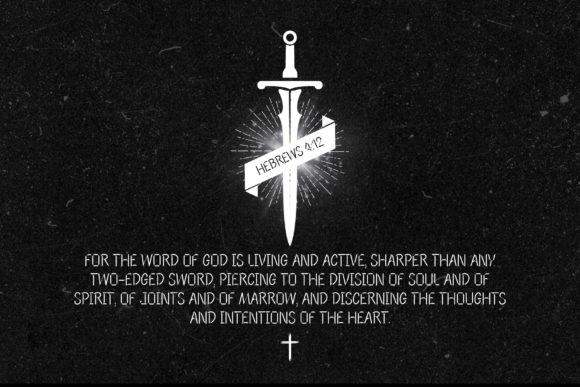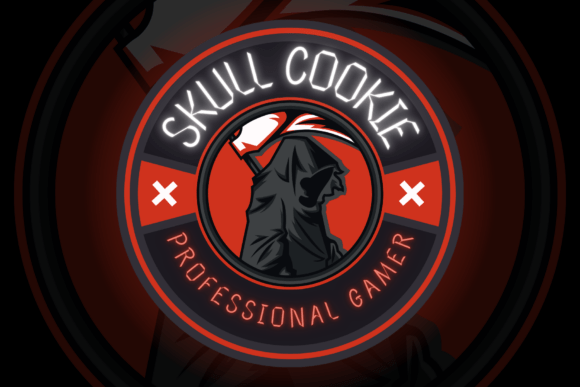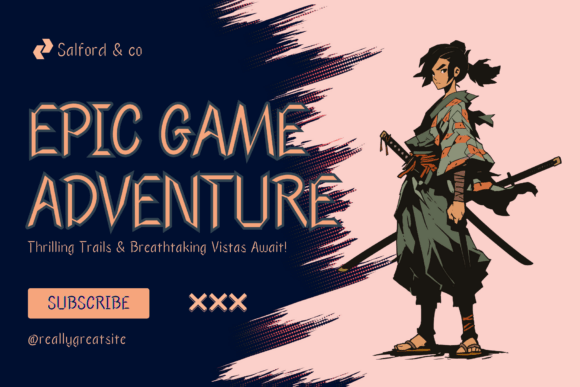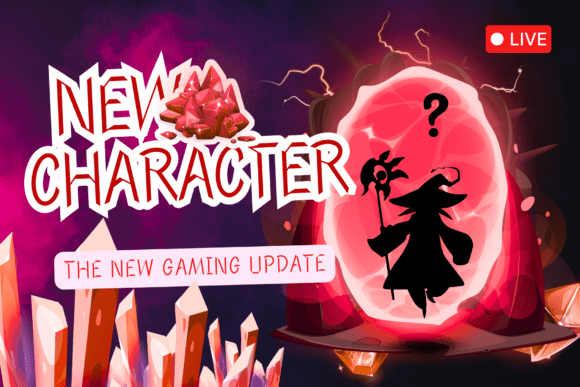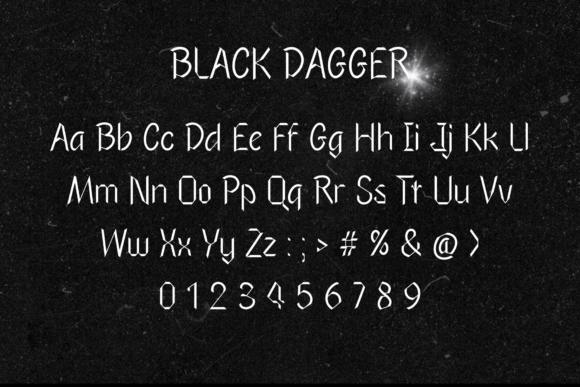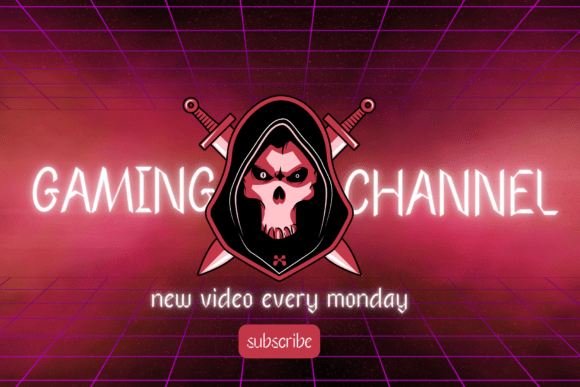
Unleash the Dark Side: Exploring the Black Dagger Font
In the realm of typography, few fonts evoke the same level of mystery and intrigue as the Black Dagger font. This Gothic fantasy font has been making waves among designers and crafters, and for good reason. With its sharp lines and sword-like points, Black Dagger exudes a sense of dark energy that’s perfect for creating a range of designs that are both eerie and captivating.
The Anatomy of Black Dagger
So, what sets Black Dagger apart from other fonts? The answer lies in its unique design elements. The font features sharp, pointed lines that give it a sword-like quality, evoking the image of a dagger plunged into the darkness. The letters themselves are ornate and intricate, with a level of detail that’s both impressive and intimidating. Whether you’re designing a poster, book cover, or party invitation, Black Dagger is sure to make a statement.
Crafting a Mysterious Atmosphere
One of the key benefits of using Black Dagger is its ability to create a mysterious and intriguing atmosphere. The font’s dark energy is palpable, and it’s perfect for designers who want to add a touch of the unknown to their work. Whether you’re creating a spooky menu for a Halloween party or a book cover for a fantasy novel, Black Dagger is the perfect choice. The font’s Gothic undertones add a level of sophistication and elegance, making it suitable for a range of applications.
Perfect for Halloween and Fantasy Designs
Halloween is just around the corner, and Black Dagger is the perfect font for creating spooky and eye-catching designs. Imagine using Black Dagger to create a poster for a haunted house, a book cover for a horror novel, or a party invitation for a spooky soiree. The font’s dark and mysterious vibe is sure to send shivers down the spines of your audience. But Black Dagger isn’t just limited to Halloween designs – it’s also perfect for fantasy graphics, such as logos, icons, and illustrations.
Adding a Fierce and Mysterious Feel to Your Designs
So, how can you use Black Dagger to add a fierce and mysterious feel to your designs? Here are a few tips:
- Use Black Dagger as a headline font to grab attention and create a sense of drama.
- Pair Black Dagger with a simpler font to create contrast and add visual interest.
- Experiment with different colors and textures to add depth and dimension to your design.
- Use Black Dagger to create a sense of continuity across multiple design elements, such as logos, icons, and illustrations.
Whether you’re a seasoned designer or a crafty DIY enthusiast, Black Dagger is a font that’s sure to inspire. Here are a few tips for getting the most out of Black Dagger:
- Experiment with different design elements, such as textures, patterns, and imagery, to add depth and interest to your design.
- Don’t be afraid to get creative and push the boundaries of what’s possible with Black Dagger.
- Use Black Dagger to create a sense of cohesion across multiple design elements, such as business cards, brochures, and website headers.
- Take advantage of Black Dagger’s versatility by using it for a range of applications, from digital designs to print materials.
In conclusion, Black Dagger is a font that’s sure to make a statement. With its sharp lines, sword-like points, and dark energy, it’s the perfect choice for designers and crafters who want to add a touch of mystery and intrigue to their work. Whether you’re creating a spooky Halloween design or a fantasy graphic, Black Dagger is the perfect font for unleashing your creativity and taking your designs to the next level.